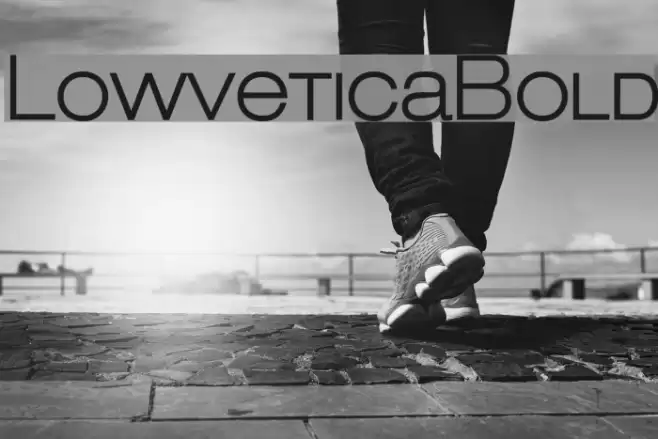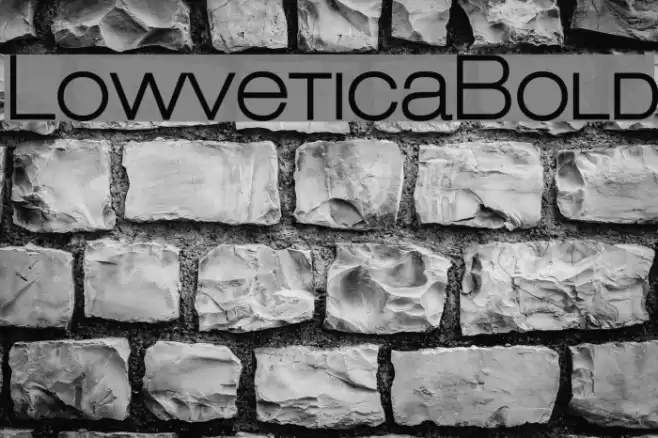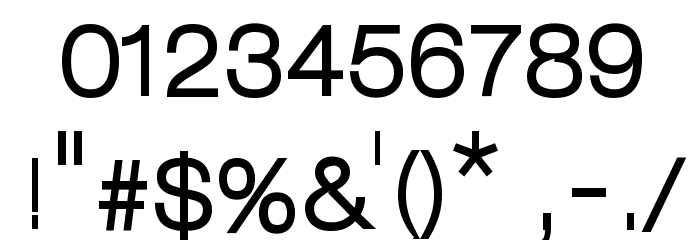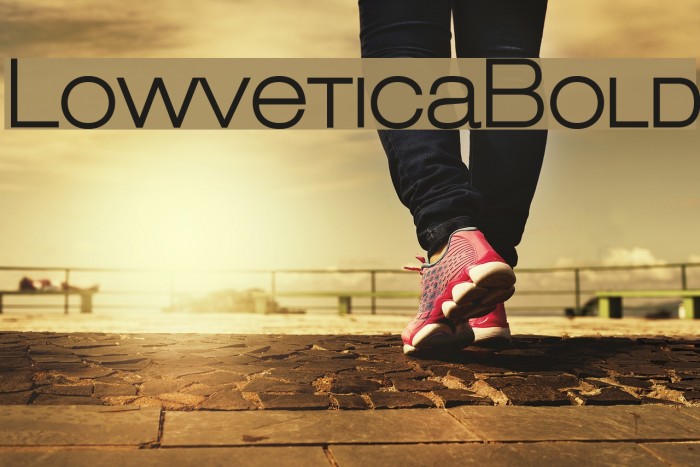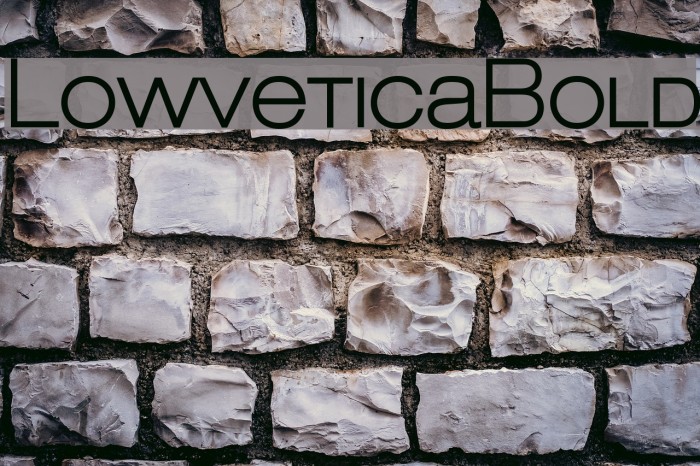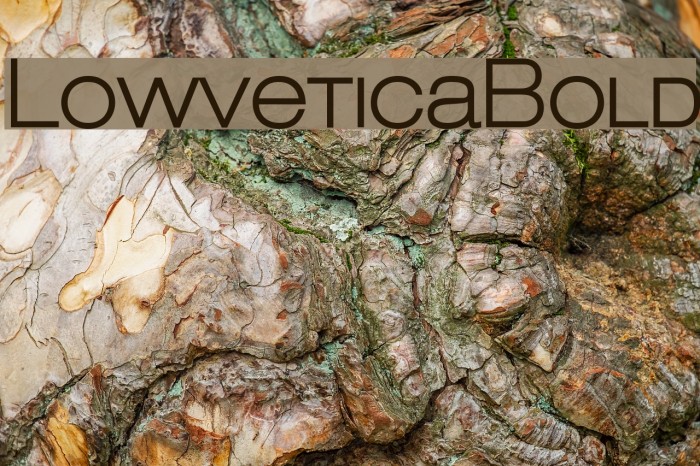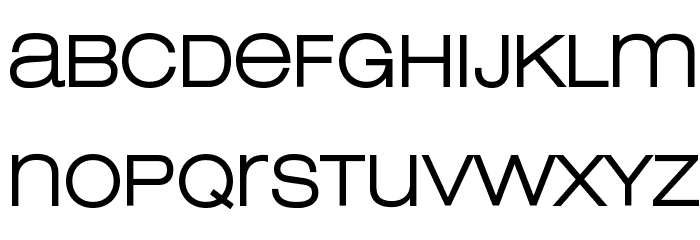
LowveticaBold
This font exhibits a clean, modern sans-serif style with a bold weight. The characters are evenly spaced, providing a balanced and harmonious appearance. The uppercase and lowercase letters maintain a consistent geometric structure, enhancing readability. The numbers are clear and distinct, making them suitable for various applications. Special characters are well-defined, adding versatility to the font's use. The overall design is sleek and minimalistic, ideal for contemporary projects.
A bold, modern sans-serif font with clean lines and balanced spacing.
- Proposed Projects: Ideal for branding, advertising, web design, and editorial projects where a modern and clean aesthetic is desired.
- Use Case: Headlines, Logos, Web design